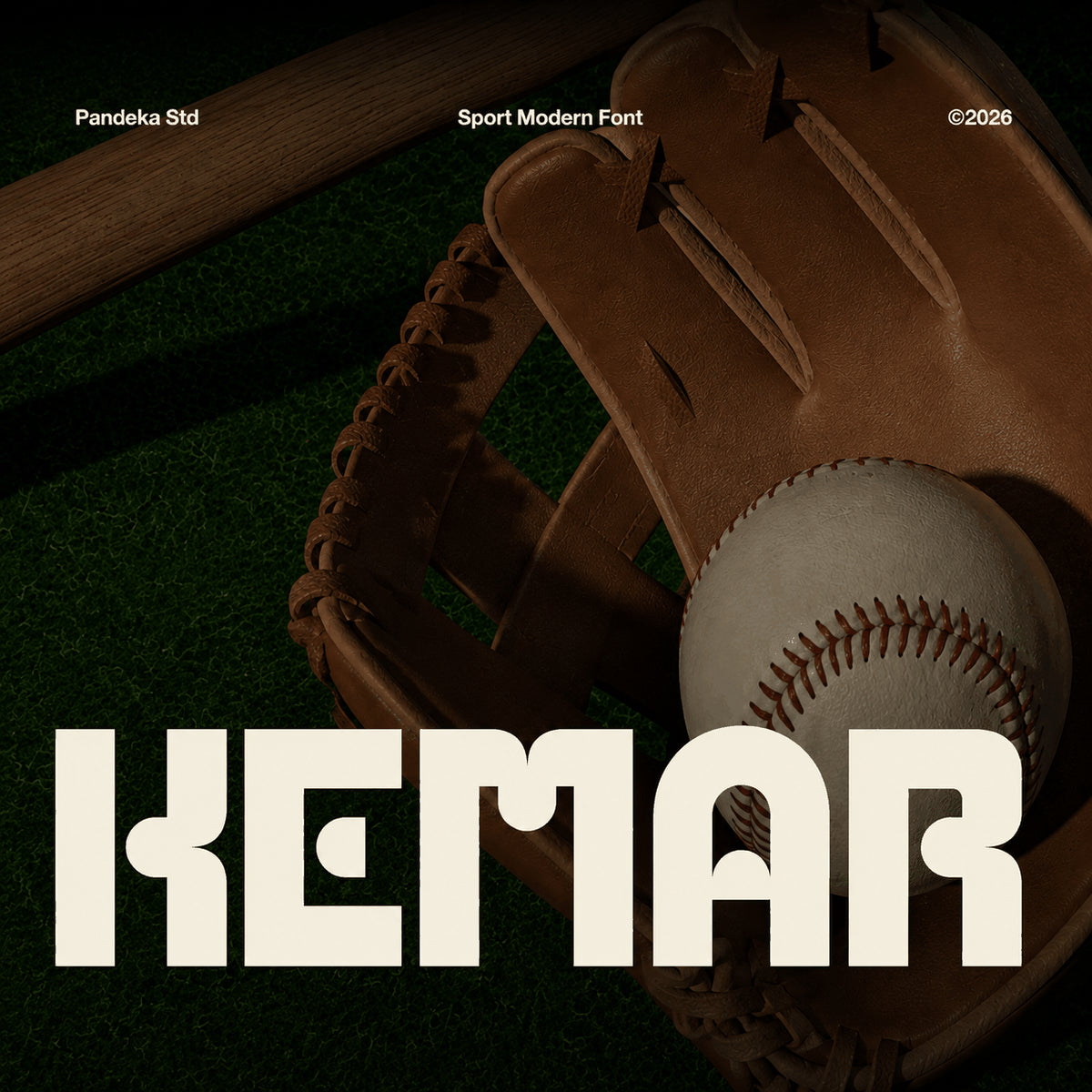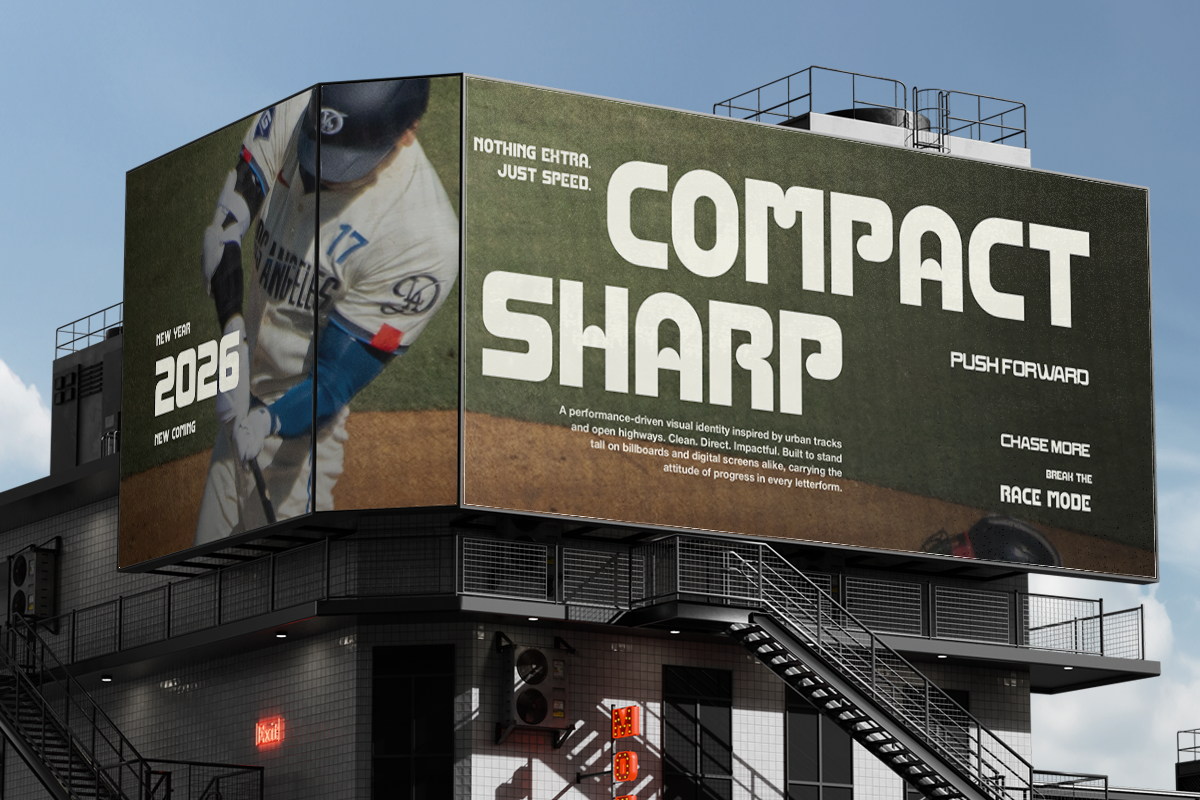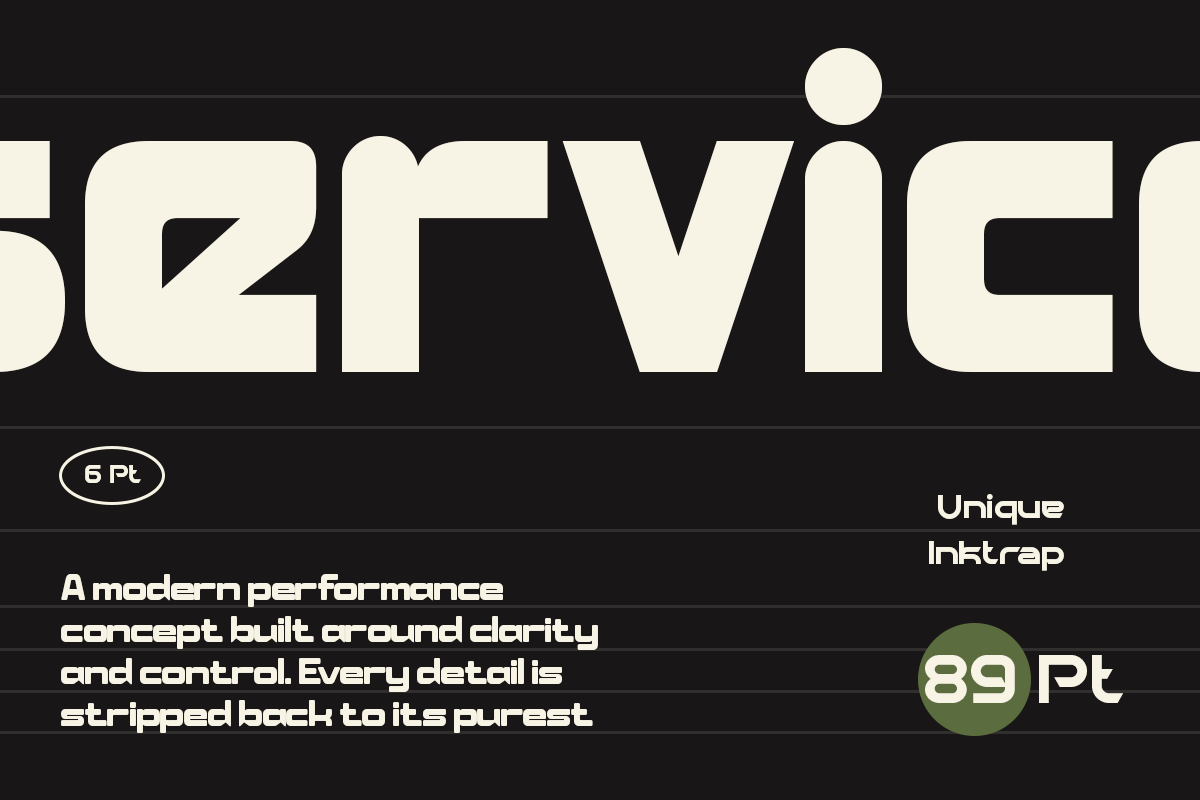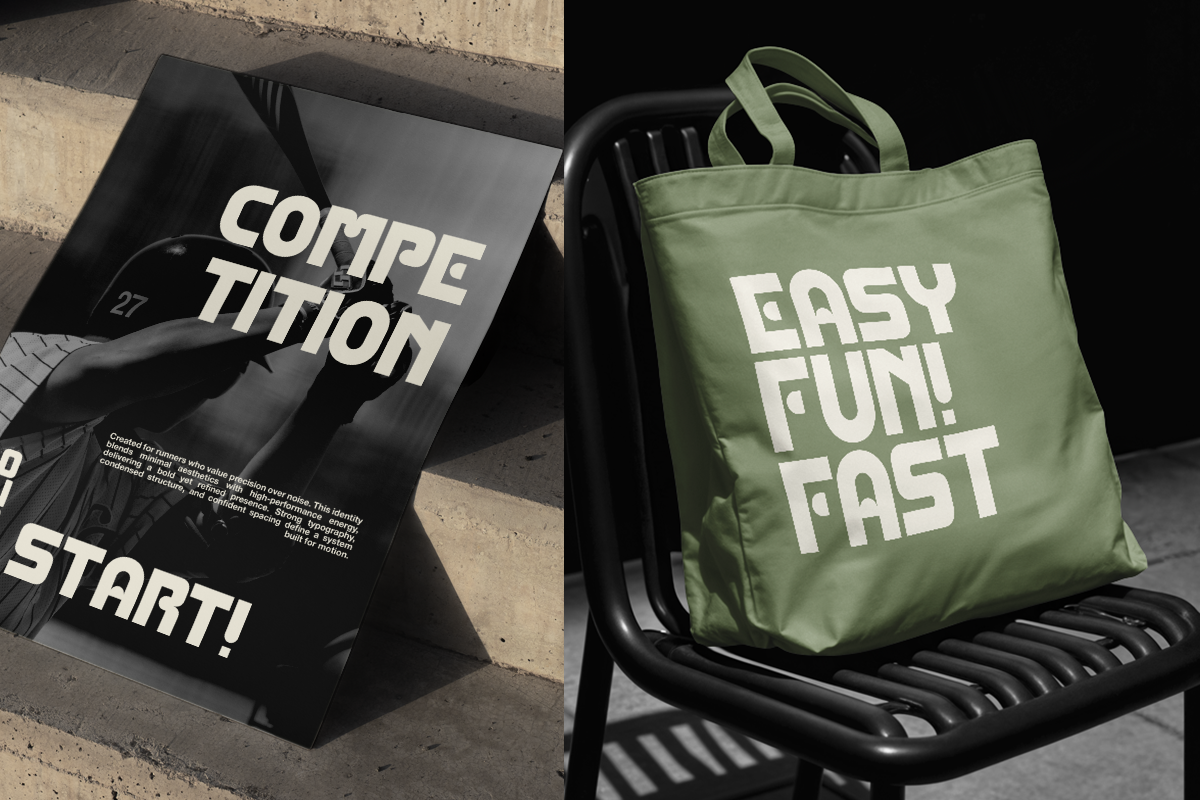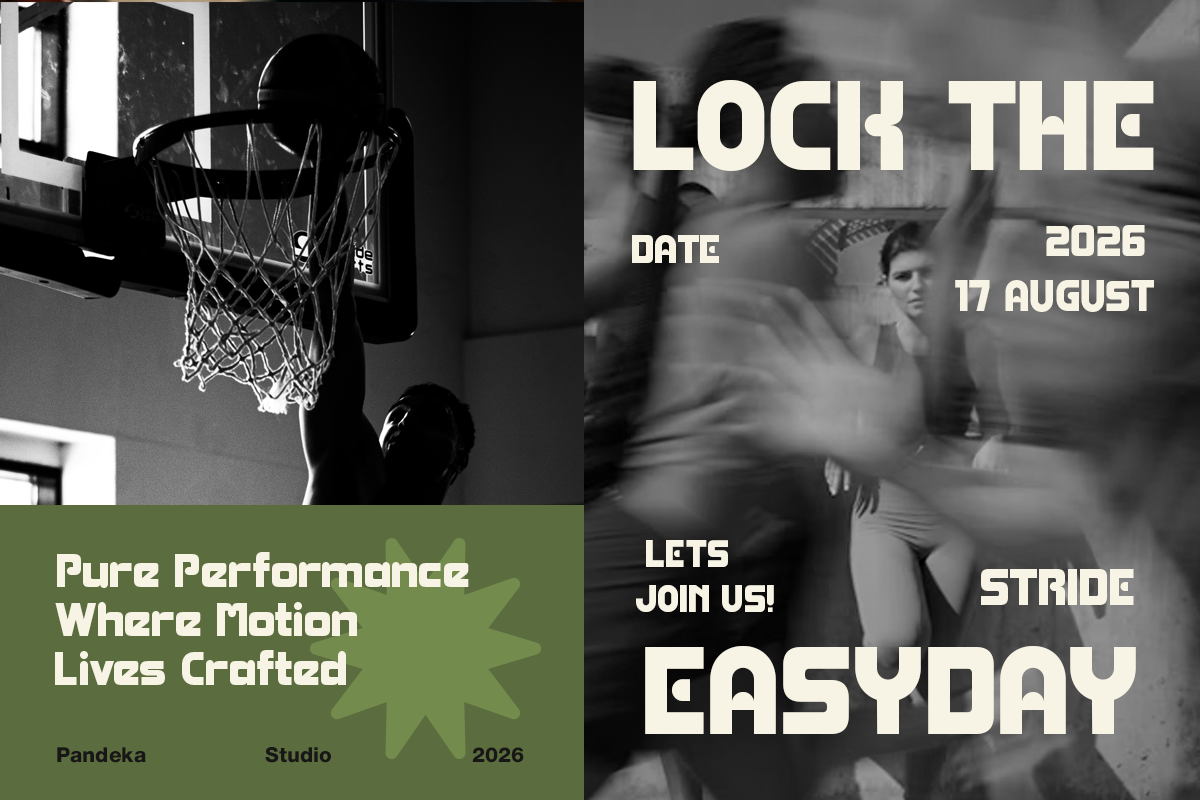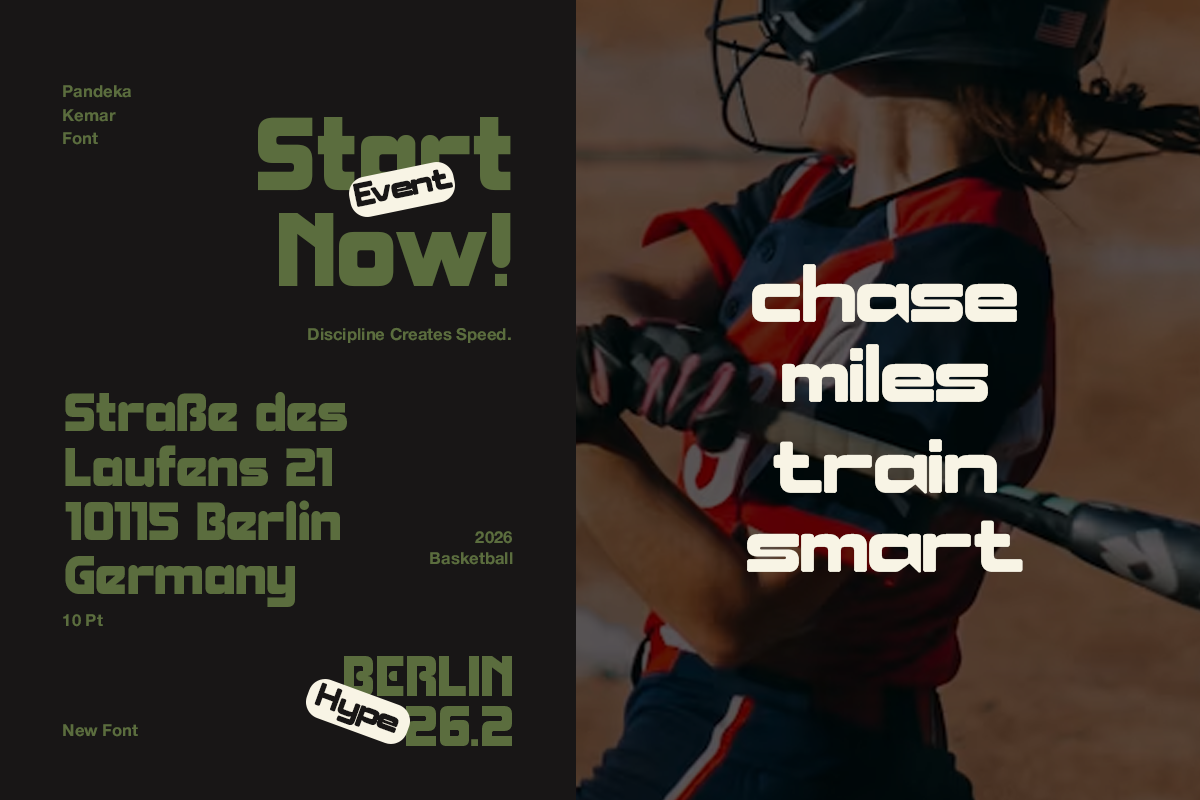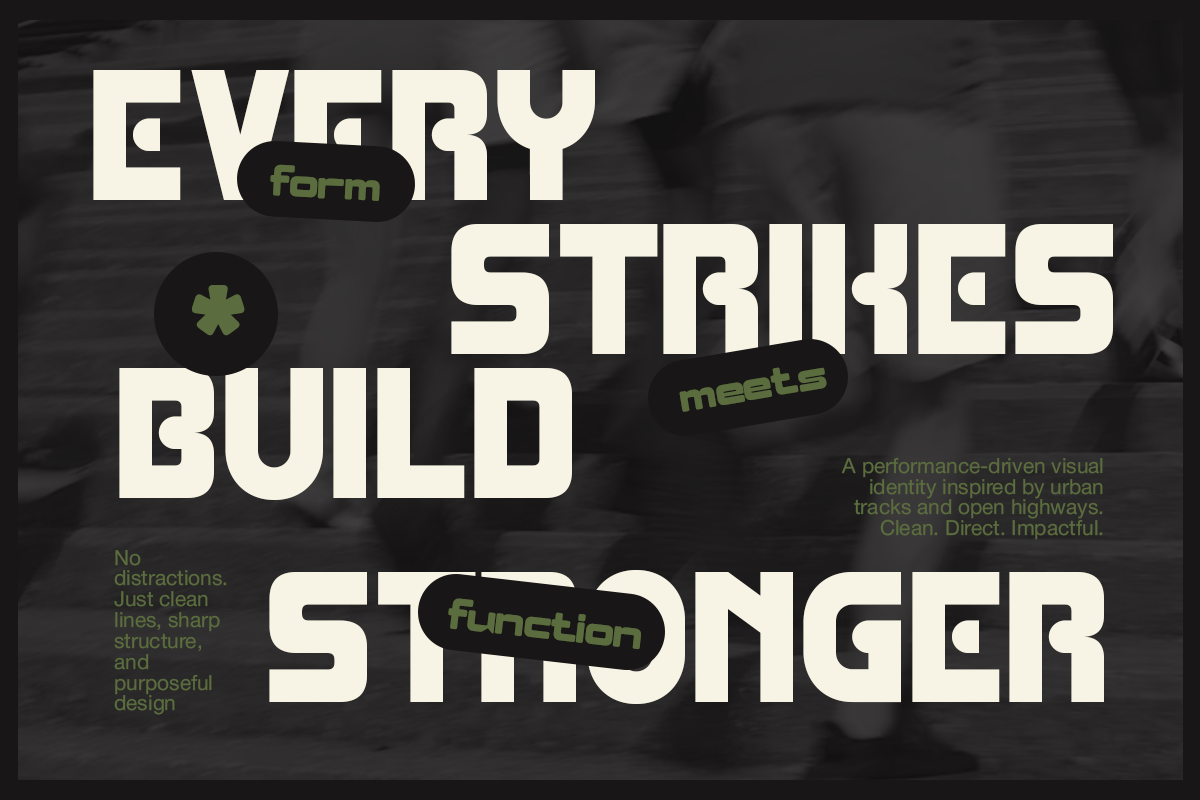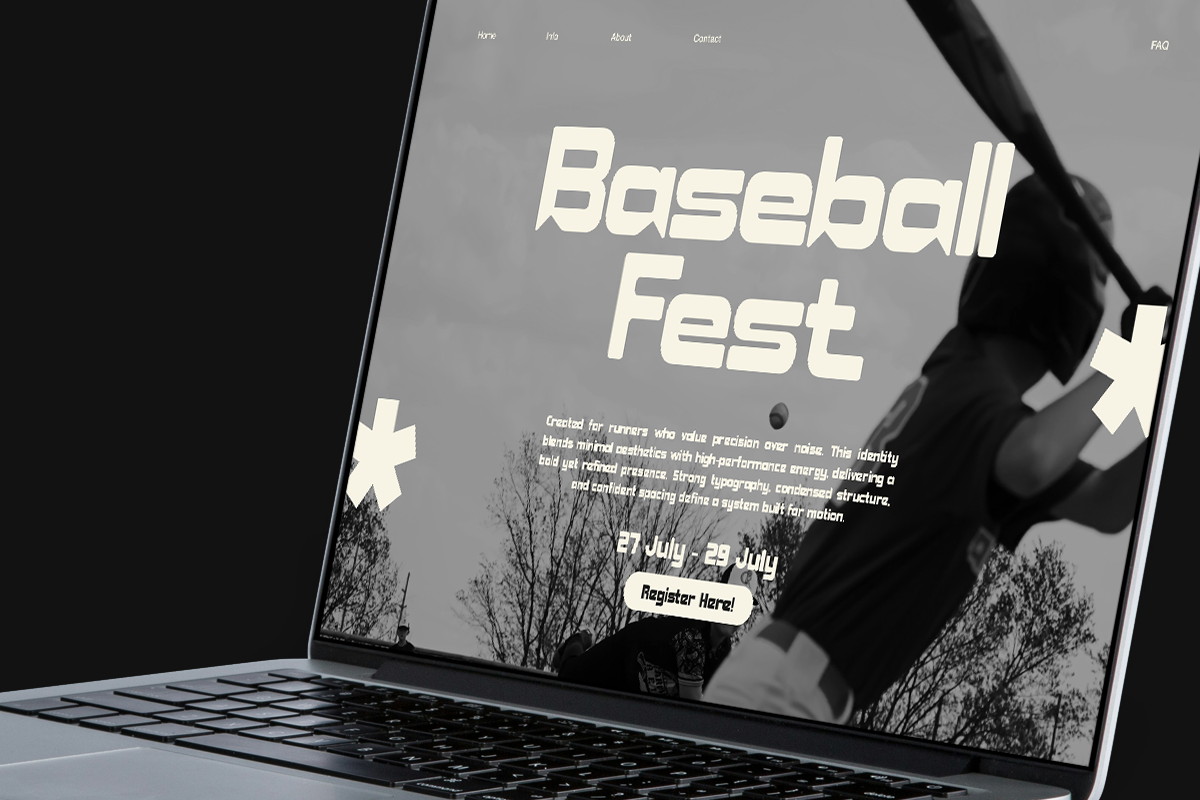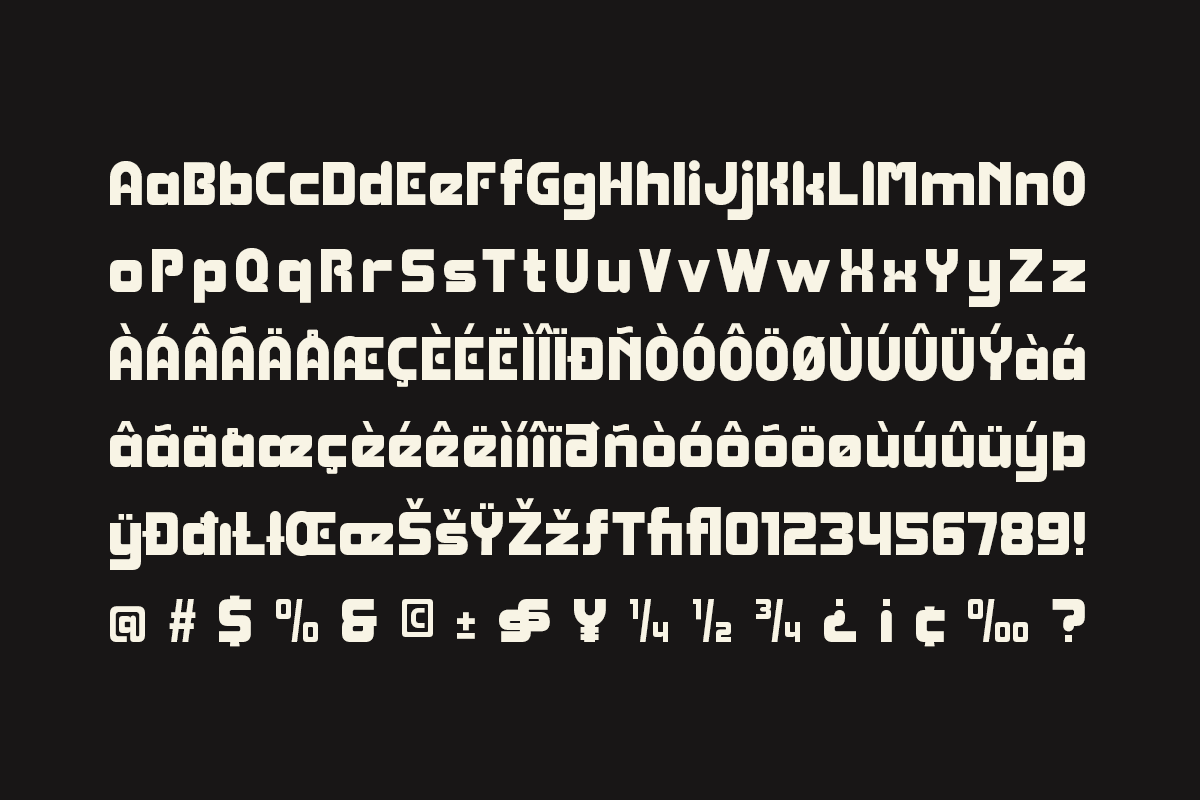
Kemar - Modern Sport Font
Kemar is a modern sport font built for bold performance, speed, and competitive energy. Featuring strong geometric letterforms with clean edges and a futuristic athletic style, it delivers a powerful visual impact for sports branding, esports, fitness campaigns, and action-driven designs while maintaining excellent readability across print and digital media.
Available in 2 styles: Regular & Oblique, Kemar is ideal for sports branding, team logos, esports graphics, fitness branding, gym promotions, event posters, racing themes, basketball and football campaigns, product packaging, website headers, social media graphics, merchandise designs, signage, headlines, and modern promotional materials. It also includes multilingual support, making it suitable for creative projects worldwide.
• 2 Style: Regular and Oblique
• Full Character Set: Uppercase, lowercase, numbers, symbols, and punctuation
Language Support: Danish, English, Estonian, Filipino, Finnish, French, Friulian, Galician, German, Gusii, Indonesian, Irish, Italian, Luxembourgish, Norwegian Bokmål, Norwegian Nynorsk, Nyankole, Oromo, Portuguese, Romansh, Rombo, Spanish, Swedish, Swiss-German, Uzbek (Latin)
Kemar Modern Sport Font is a geometric display typeface available in Regular and Oblique styles, provided in TTF, OTF, WOFF, and WOFF2 formats with a full character set including uppercase, lowercase, numbers, symbols, and punctuation. It is PUA encoded, compatible with major design software on PC and Mac, and supports multiple languages including English, French, German, Spanish, and Portuguese.